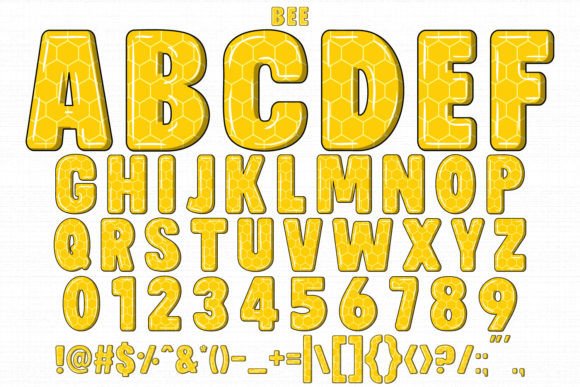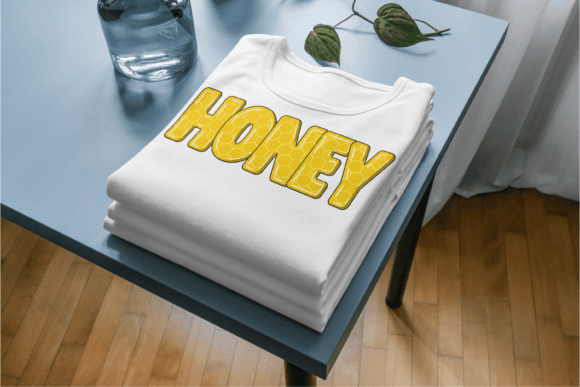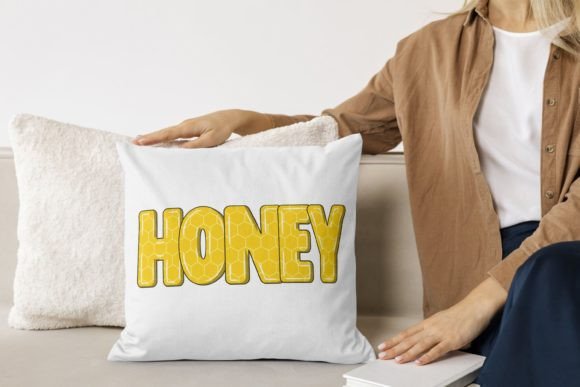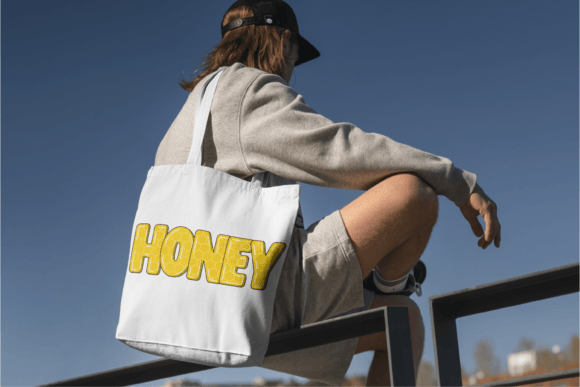
Bee Font: The Sweetest Addition to Your Font Library
Are you looking for a font that will add a touch of nature and whimsy to your designs? Look no further than the Bee Font! This charming font features a bee skin texture, making it perfect for nature-themed designs, children’s projects, and more. In this article, we’ll dive into the details of the Bee Font, its features, and how to use it to elevate your creations.
What is Bee Font?
Bee Font is a color font that boasts a unique bee skin texture, giving it a distinctive and eye-catching appearance. The font comes in two versions: a black version and a color version. The black version is compatible with Cricut Design Space and other cutting machines, making it ideal for crafters and makers. The color version, on the other hand, is perfect for digital designers who want to add a pop of color to their work.
Perfect for Nature-Themed Designs and Children’s Projects
The Bee Font is a versatile font that can be used in a variety of design projects. Its nature-inspired texture makes it perfect for designs that feature bees, flowers, and other outdoor elements. Additionally, the font’s playful and whimsical feel makes it an excellent choice for children’s projects, such as book illustrations, educational materials, and activity sheets.
Why You’ll Love Bee Font
So, why should you add Bee Font to your font library? Here are just a few reasons:
- Unique texture: The bee skin texture gives the font a one-of-a-kind look that’s sure to grab attention.
- Versatility: Use the font for nature-themed designs, children’s projects, or any other creation that needs a touch of whimsy.
- Digital design flexibility: The color version can be used in a variety of digital design programs, giving you the flexibility to create in your preferred software.
Tips and Tricks for Using Bee Font
To get the most out of Bee Font, here are a few tips and tricks to keep in mind:
- Experiment with colors: Try pairing the color version of the font with different background colors or textures to create unique effects.
- Mix and match: Combine Bee Font with other fonts or graphics to create visually interesting designs.
- Pay attention to size: Make sure to adjust the font size according to your design needs. The bee texture can be quite detailed, so it may need to be larger to be legible.
In conclusion, Bee Font is a delightful addition to any designer’s font library. Its unique bee skin texture, versatility, and ease of use make it perfect for a wide range of design projects. Whether you’re a crafter, digital designer, or simply someone who loves to create, Bee Font is sure to become a favorite. So why wait? Download Bee Font today and start creating your own sweet designs!